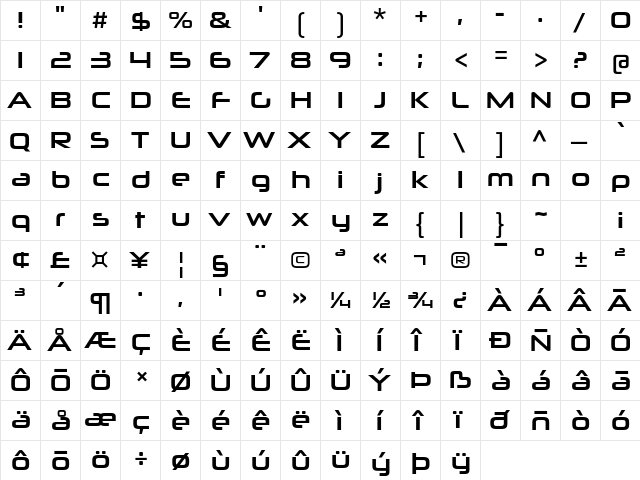
Neuropolitical Regular
Design Context for Neuropolitical Typeface
Neuropolitical takes a measured approach to typography — its balanced proportions and neutral character make it a reliable workhorse for both digital and print work.